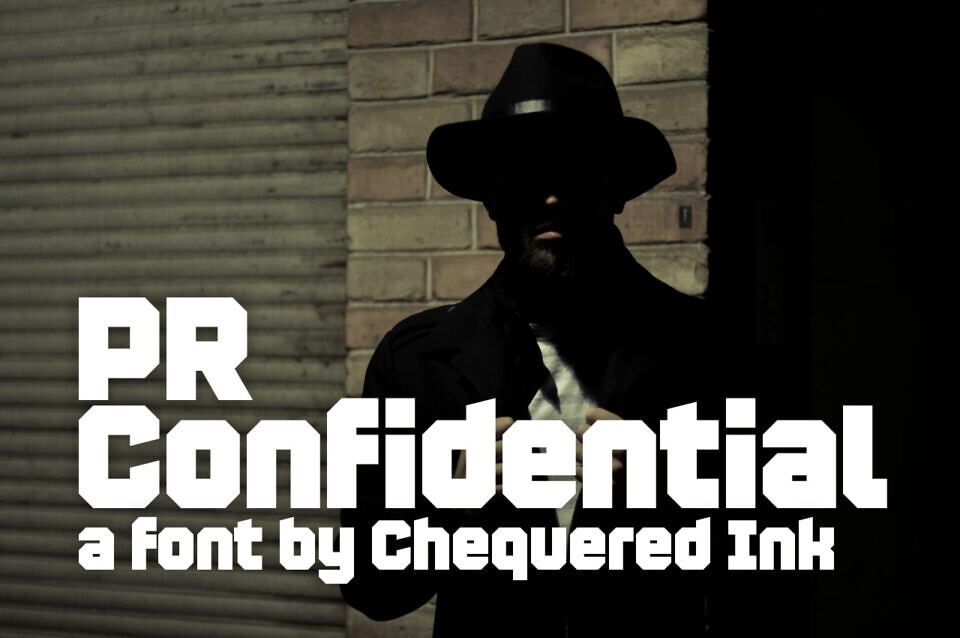
PR Confidential is a bold display typeface with thick strokes and sharp, angular forms that convey strength and mystery. Its modern, techno-inspired style makes it ideal for headlines, posters, and striking branding projects. Designed by Chequered Ink, it features a wide character set and a strong visual presence suited for impactful, attention-grabbing designs.